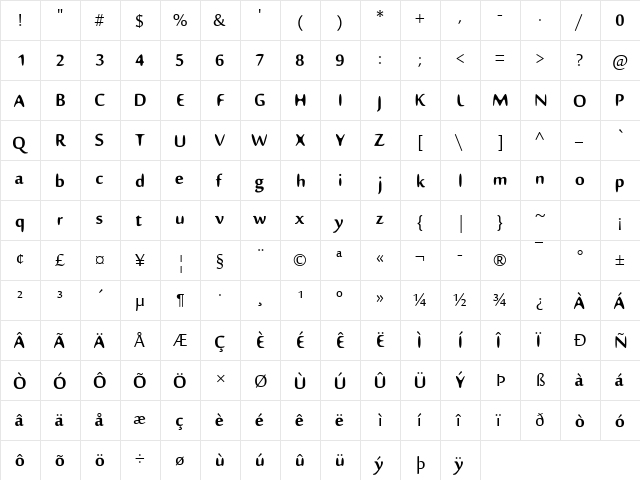
Nillima Regular
| Foundry | Nillima, Nillima Corporation |
| Designer | Sifat Ahmed |
Design Context for Nillima Typeface
Nillima takes a measured approach to typography — its balanced proportions and neutral character make it a reliable workhorse for both digital and print work.